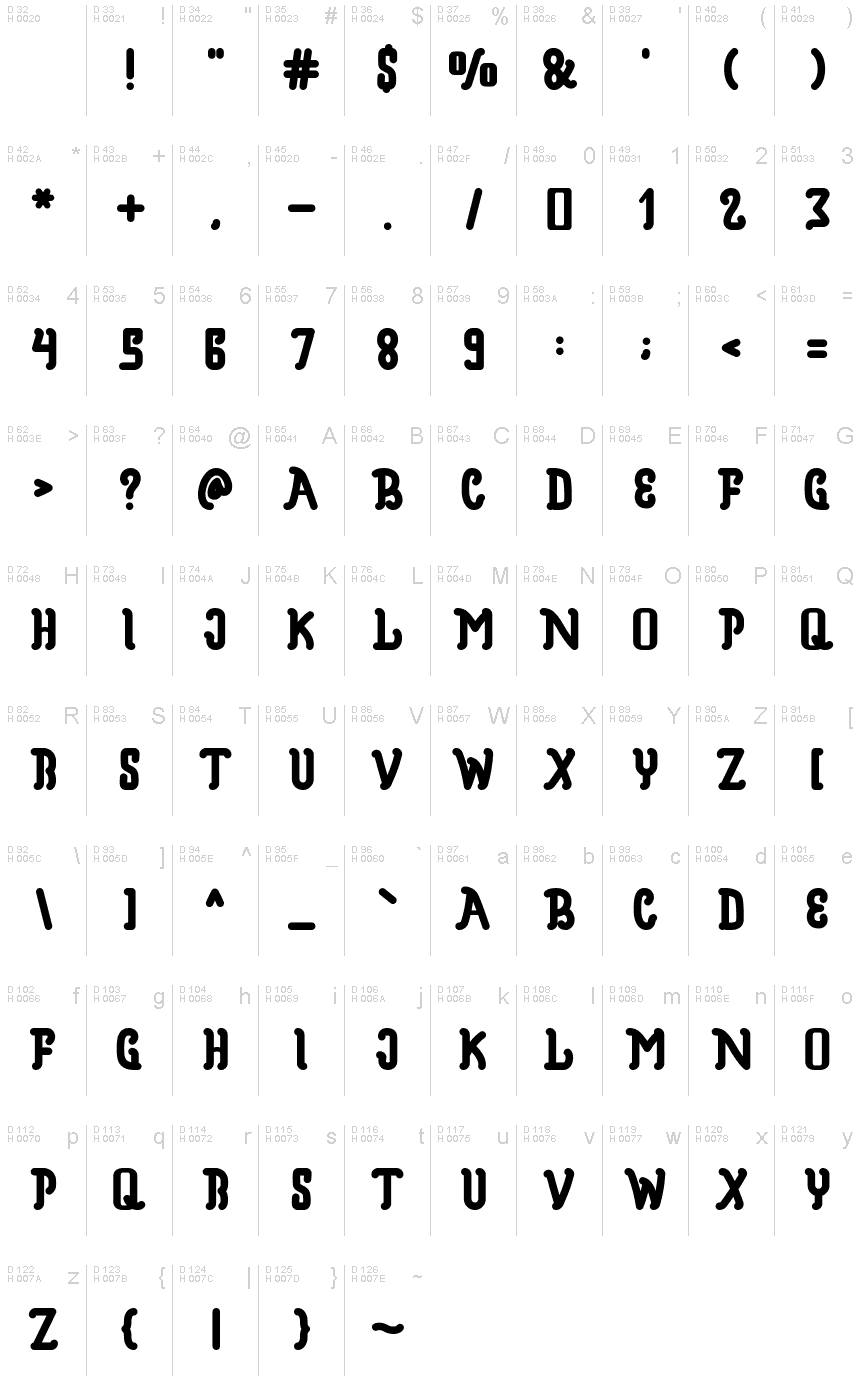
Believer
The Believer font, crafted by Sixtwenty Studio, is a stunning display typeface that commands attention with its semi-bold weight and condensed width. Its sleek and modern design makes it perfect for projects that require a bold statement, such as branding materials, packaging design, and advertising campaigns. With its new-age appeal and precise lines, the Believer font can also be used for website headers or blog titles. Whether you're creating a new logo or working on a poster design, the Believer font is ready to elevate your project to the next level.
Believer is a bold, round and soft themed display font.
Believer is very suitable for posters, t-shirts, book covers, packaging, stickers, quots and all designs that require bold elements that are clearly strong and still look soft.